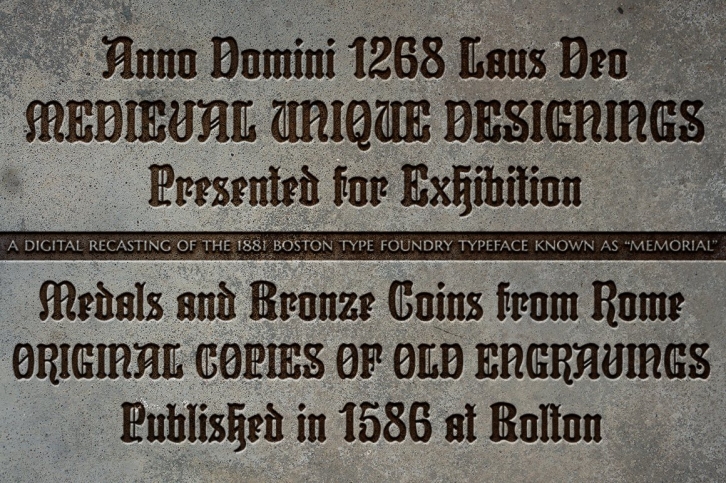
Reliquaire is a soft edged blackletter display font, seemingly worn by time. It is the historical revival and elaboration of the “Memorial†typeface created by Boston Type Foundry in January of 1881. What began as a basic character set of Capitals, lowercase, numerals, and a small handful of punctuation characters has been expanded to a full character set including unlimited fractionals, superiors & inferiors, ordinals, tabular & proportional figures, and an expanded language support character set. Historical elegance has found new life. Perfect for wedding invitations, historical ephemera recreations, headstone inscriptions, and so on.
One of my guilty pleasures is in taking the time to recreate historical typefaces as digital fonts, and expand on their character sets to enable them to be used more widely than their limited originals. A lot of incredible historical typestyles created as wood or metal type with bare bones character sets have been lost or only exist as limited specimen proofs in old books. These typefaces may have more niché uses than modern typefaces, but I believe it is important nonetheless to preserve these typefaces for future generations. These typefaces, if nothing else, can often inspire new creations.